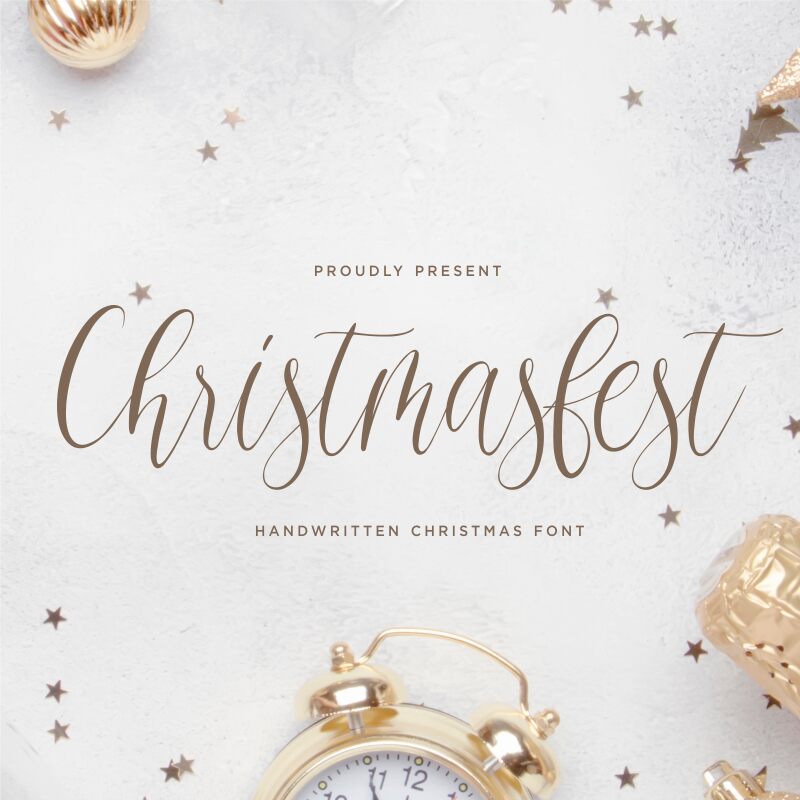
Christmasfest
Celebrate the holiday season with Christmasfest, a delightful handwritten font by Qwrtype Foundry. Its light-weight and semi-condensed width create a playful yet elegant look, perfect for any festive project. Use it for holiday greeting cards, invitations, or even on your website to add a touch of warmth and joy to your design. With its unique style, Christmasfest is also suitable for creating logos and branding materials for businesses that want to convey a friendly and approachable image. Spread cheer and merriment with this charming semi-condensed font!